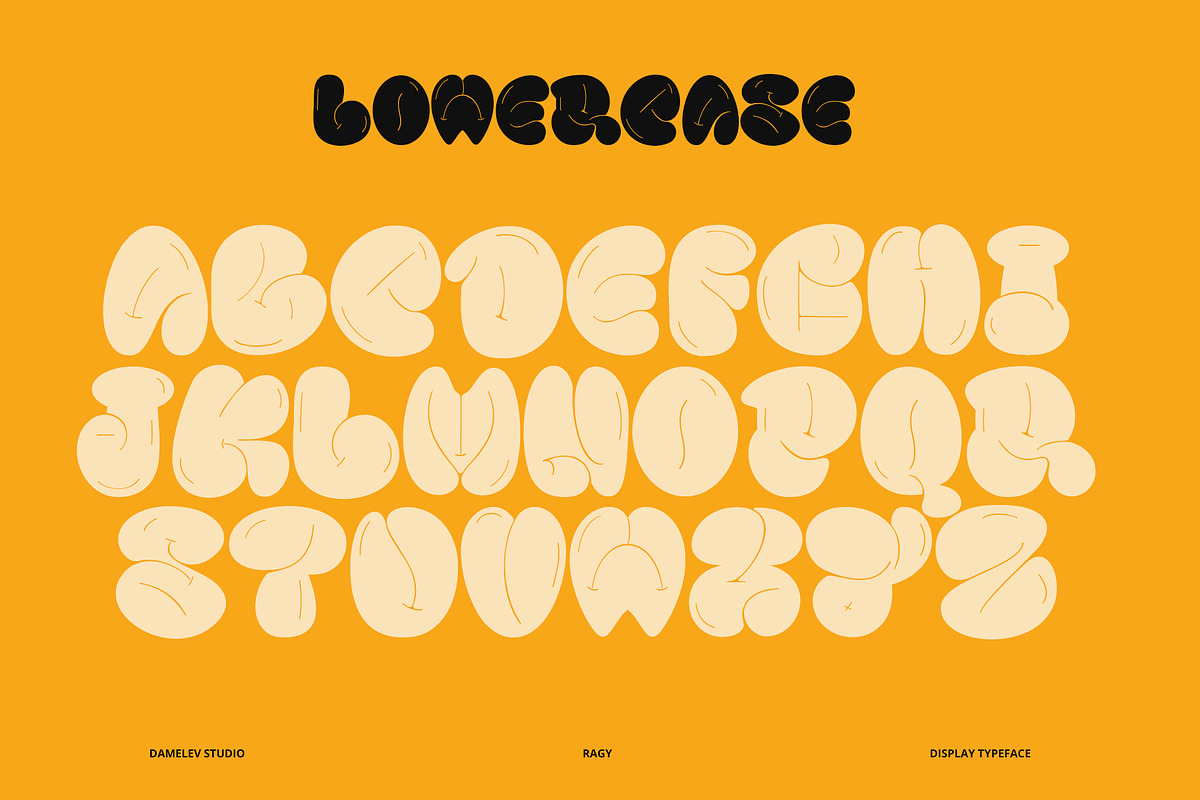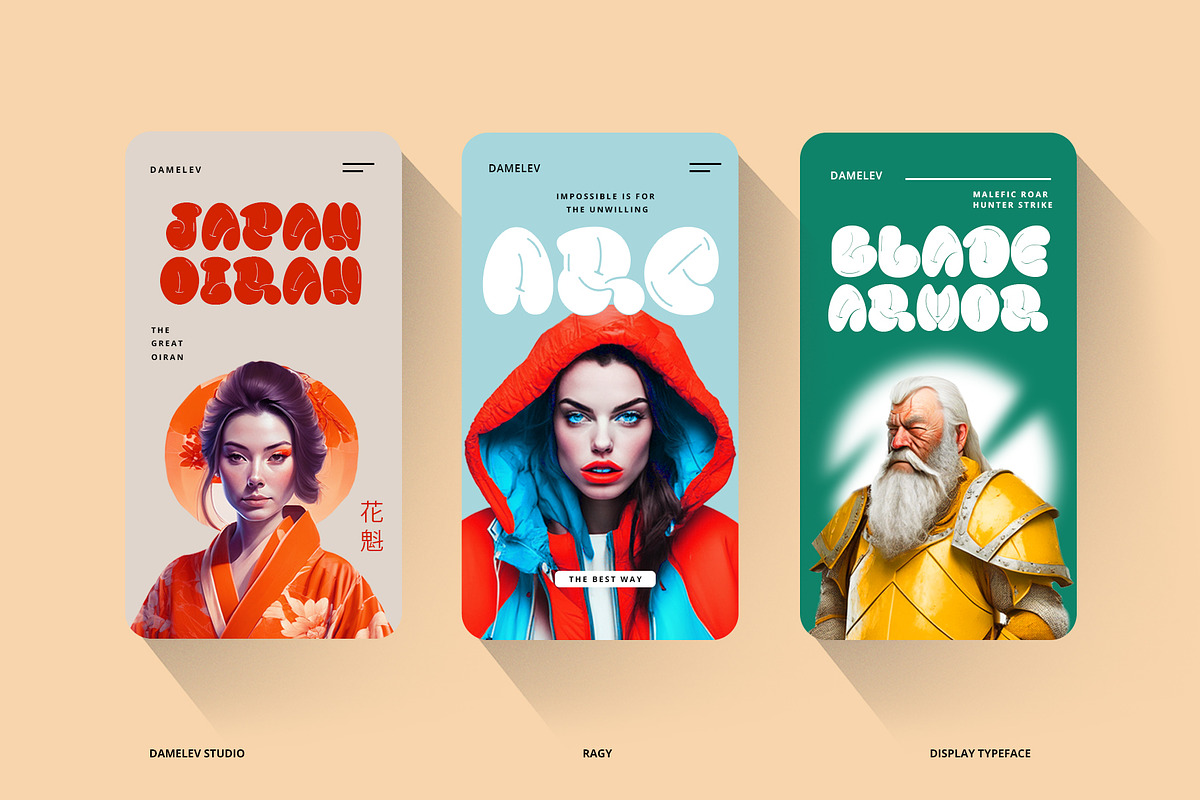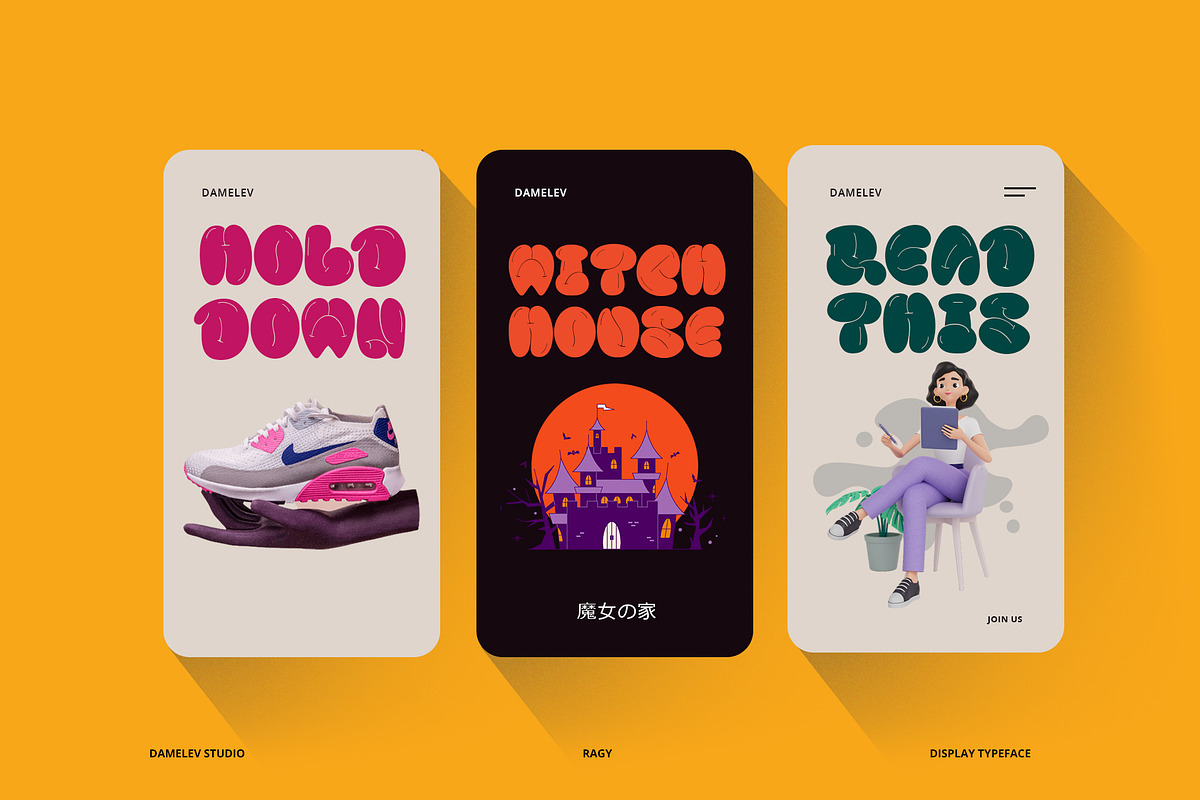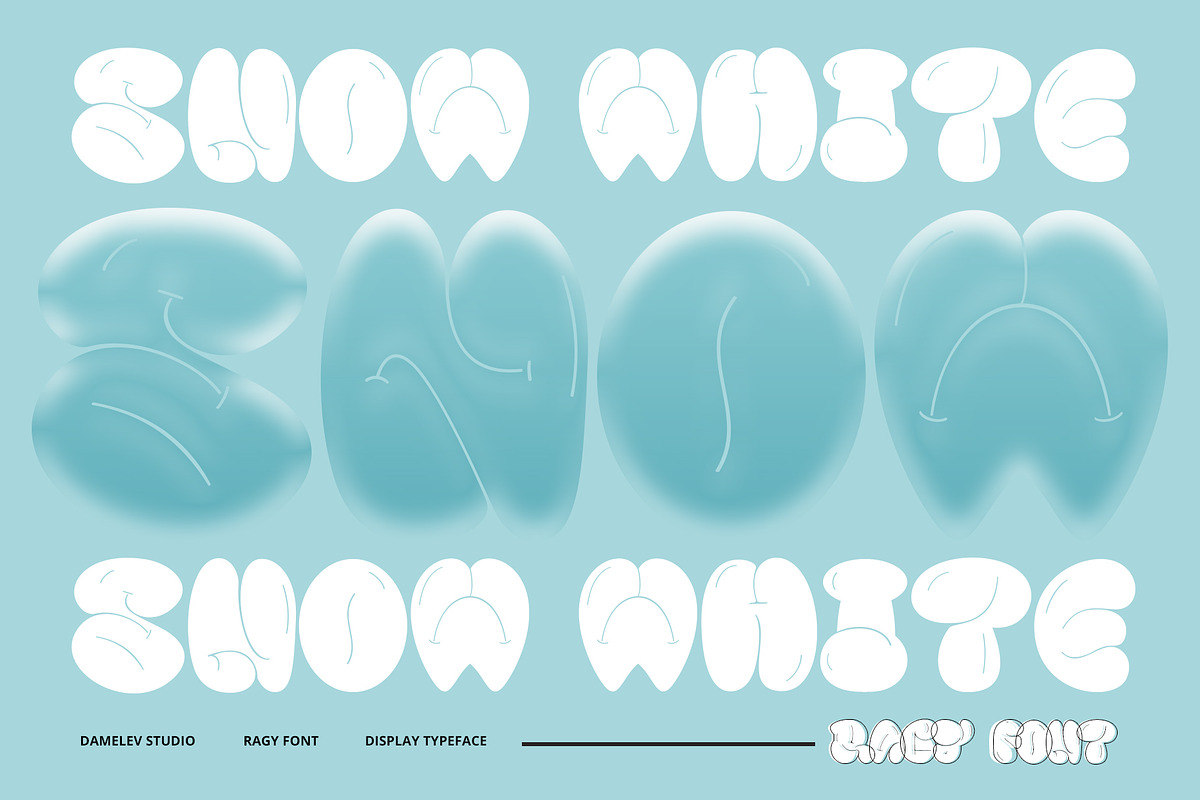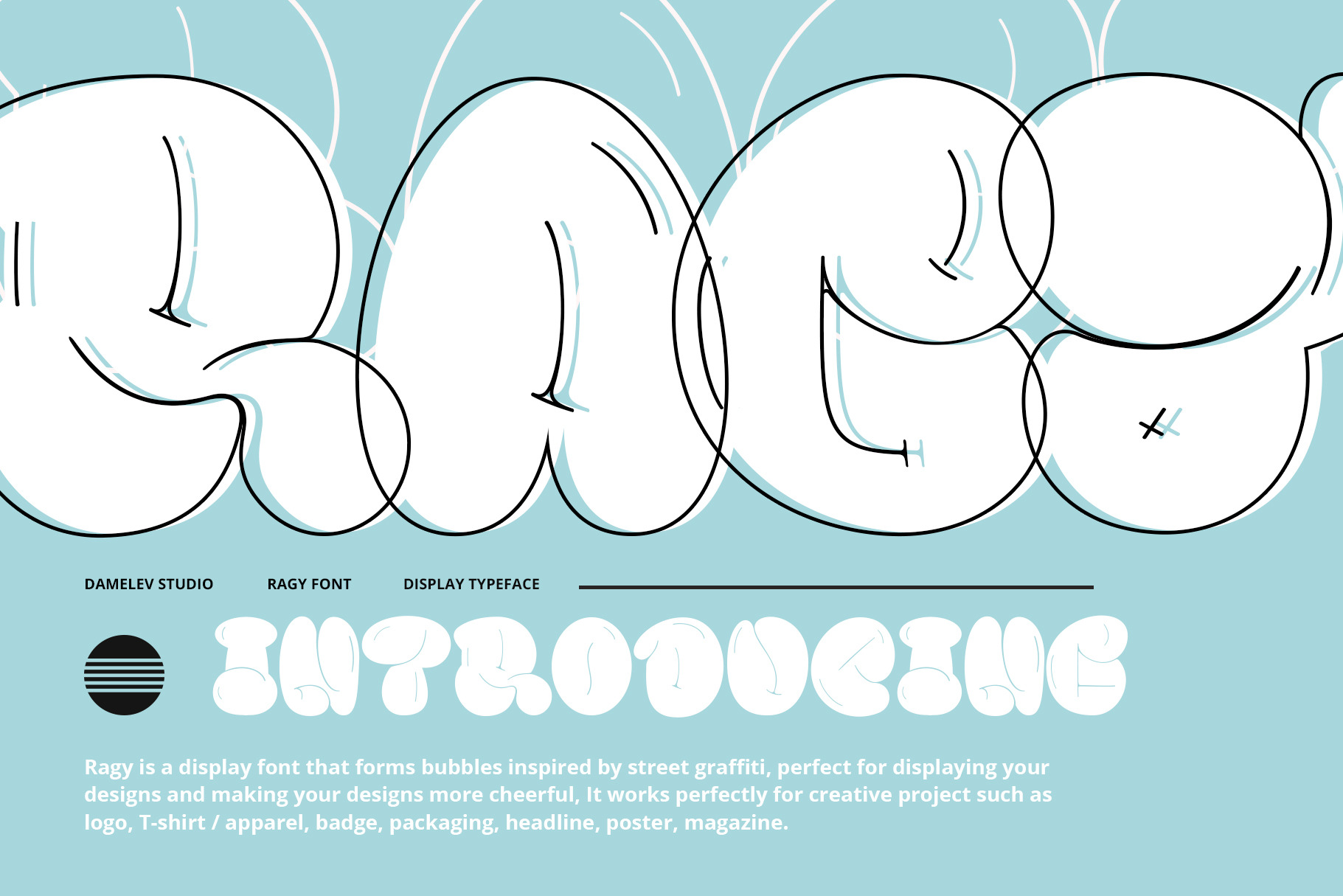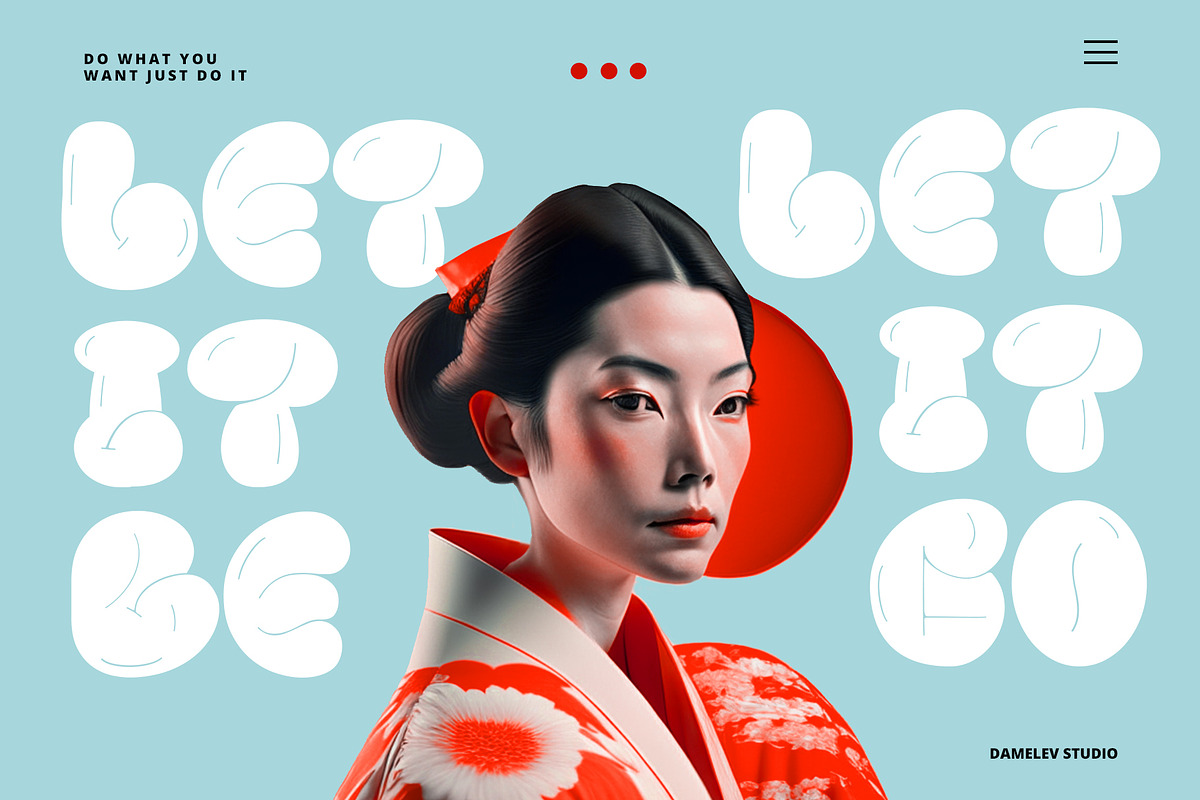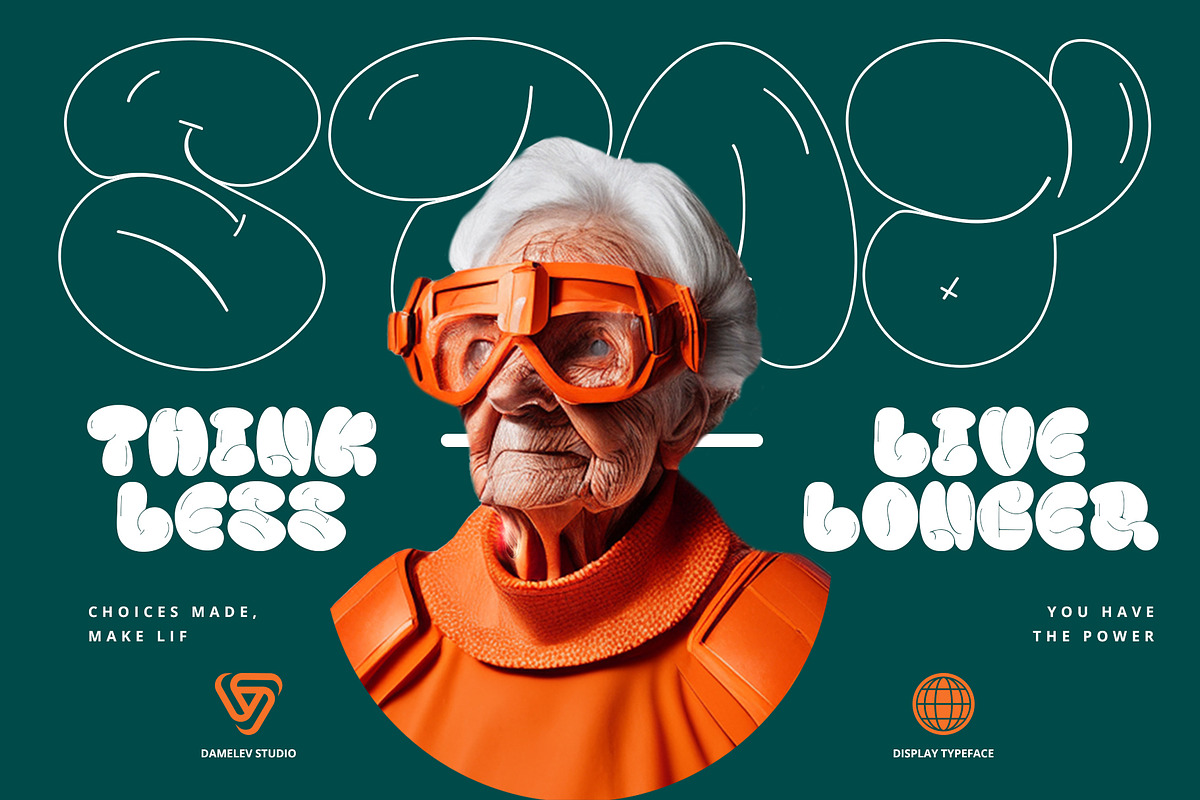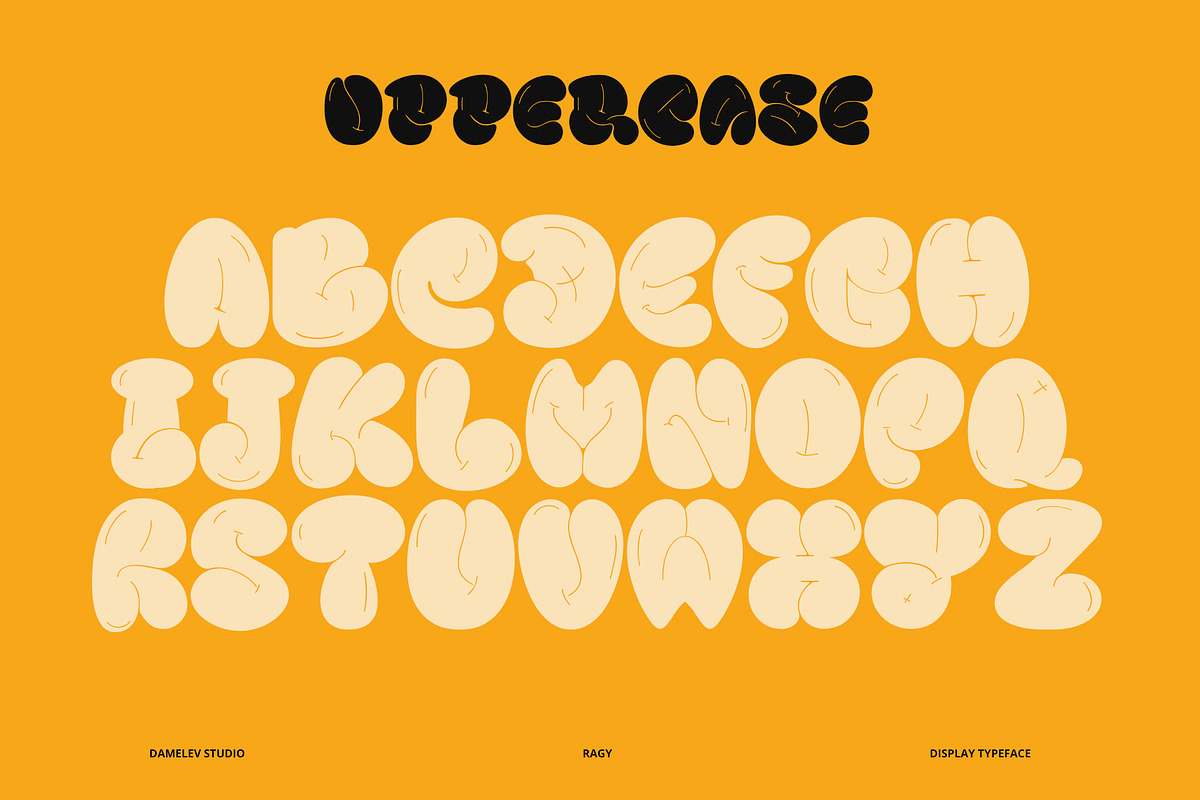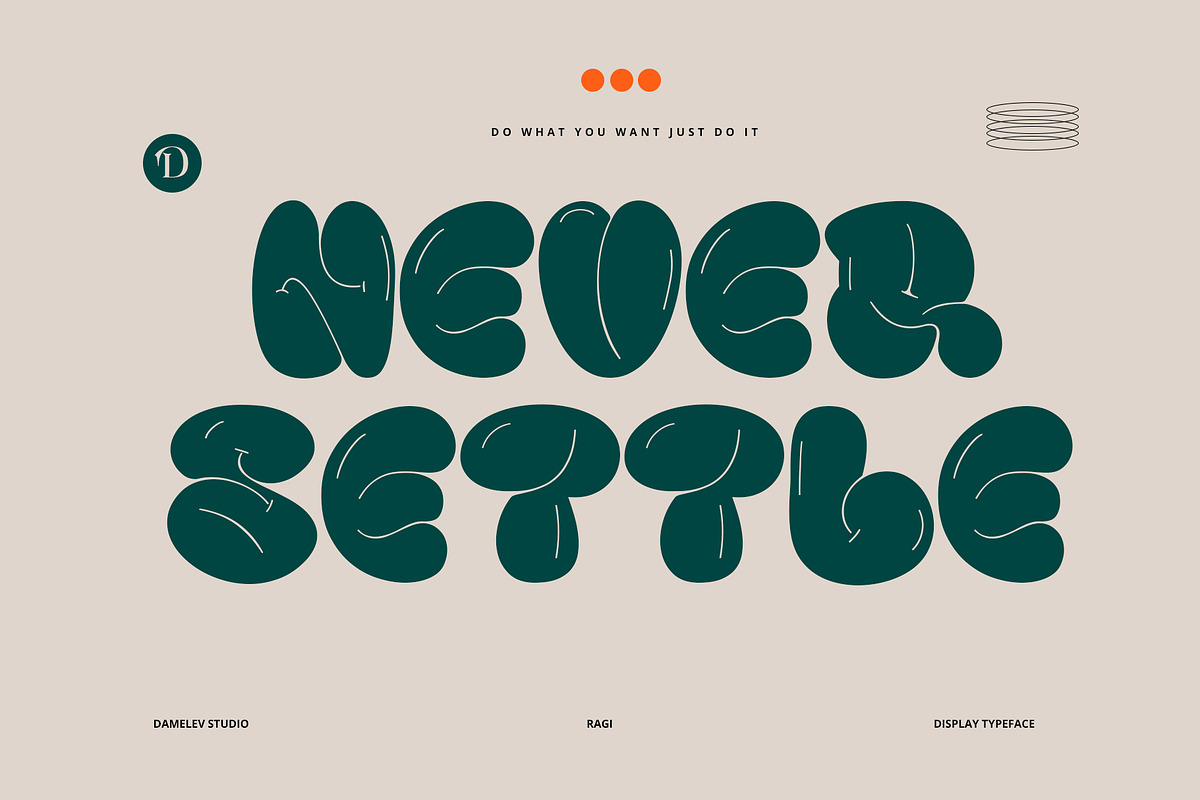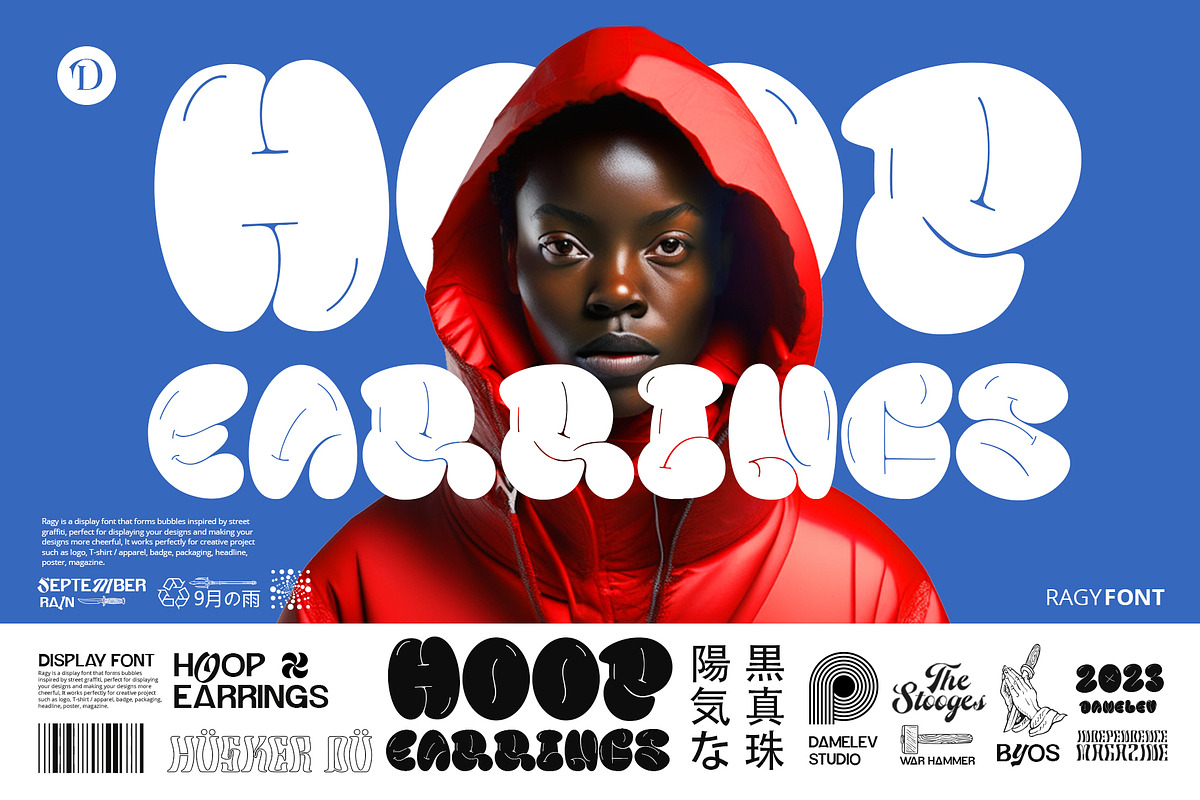
Ragy Font
Ragy is a display font that forms bubbles inspired by street graffiti, perfect for displaying your designs and making your designs more cheerful, It works perfectly for creative project such as logo, T-shirt / apparel, badge, packaging, headline, poster, magazine.